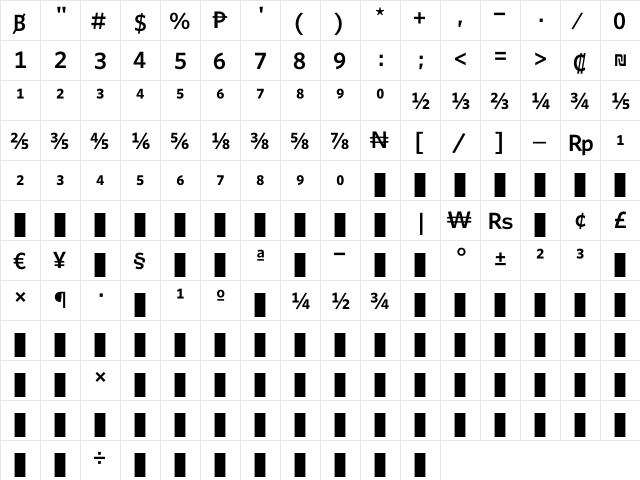
WhitneyNumeric Semibold
Design Context for WhitneyNumeric Typeface
WhitneyNumeric offers clean, dependable letterforms without strong stylistic allegiance, making it a practical choice for designers who need flexibility. Its bold stroke weight gives it real presence on the page.
Pro Tip: Use WhitneyNumeric in both headline and body roles to test its range before committing to a single application.